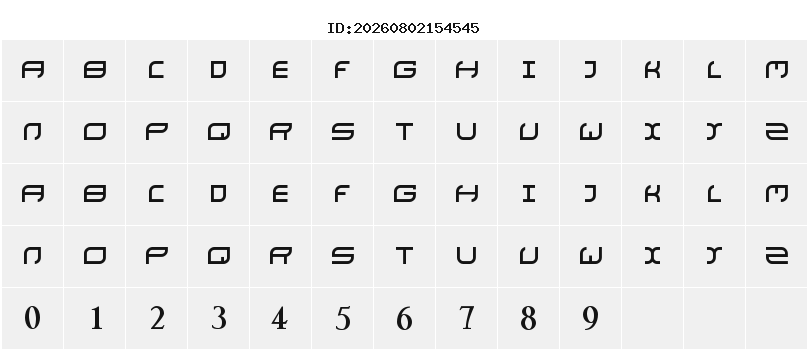
natura Preview
• Font Name: natura
• Font Style: Gras
• Font ID: natura Bold:Version 1.00
• Full Font Name: natura Bold
• Version: Version 1.00 October 9, 2015, initial release
• PostScript Name: natura-Bold
About natura.ttf
natura.ttf is a modern, elegant sans-serif font designed for ultimate readability and visual harmony. Perfect for branding, headlines, web design, and print materials.